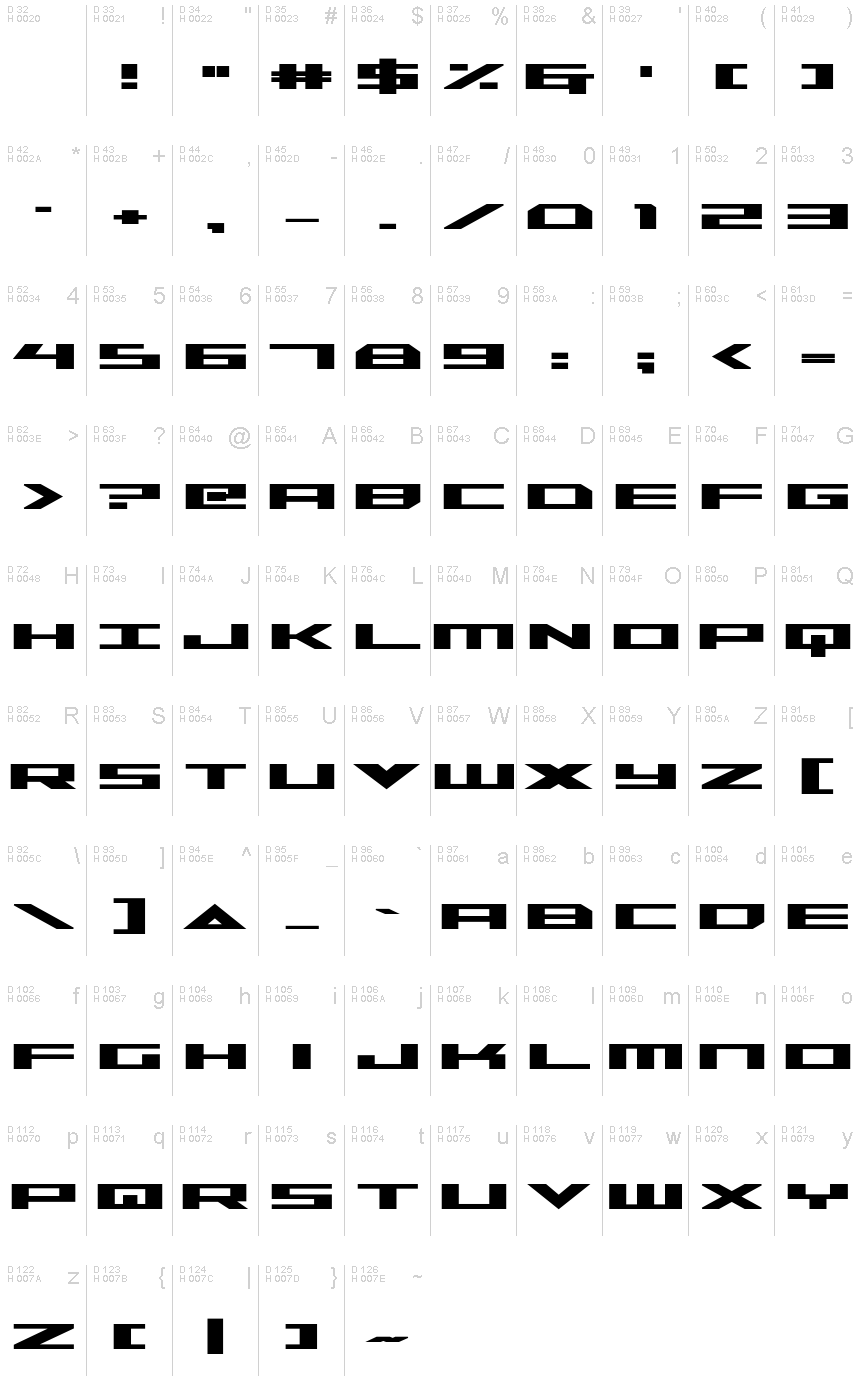
Trireme Bold by Daniel Zadorozny of Iconian Fonts is a free techno display font with an exceptionally wide, weighty silhouette. Its squared forms use long horizontal runs, tight rectangular openings, and abrupt cuts that recall machine housings. Several letters finish with sharp diagonal notches.
As an interface-style title, the lettering can turn game menus and science-fiction posters into pieces of futuristic hardware. It also suits esports branding and electronic music packaging, where the extended shapes can become part of a panel, badge, or screen graphic rather than ordinary text.